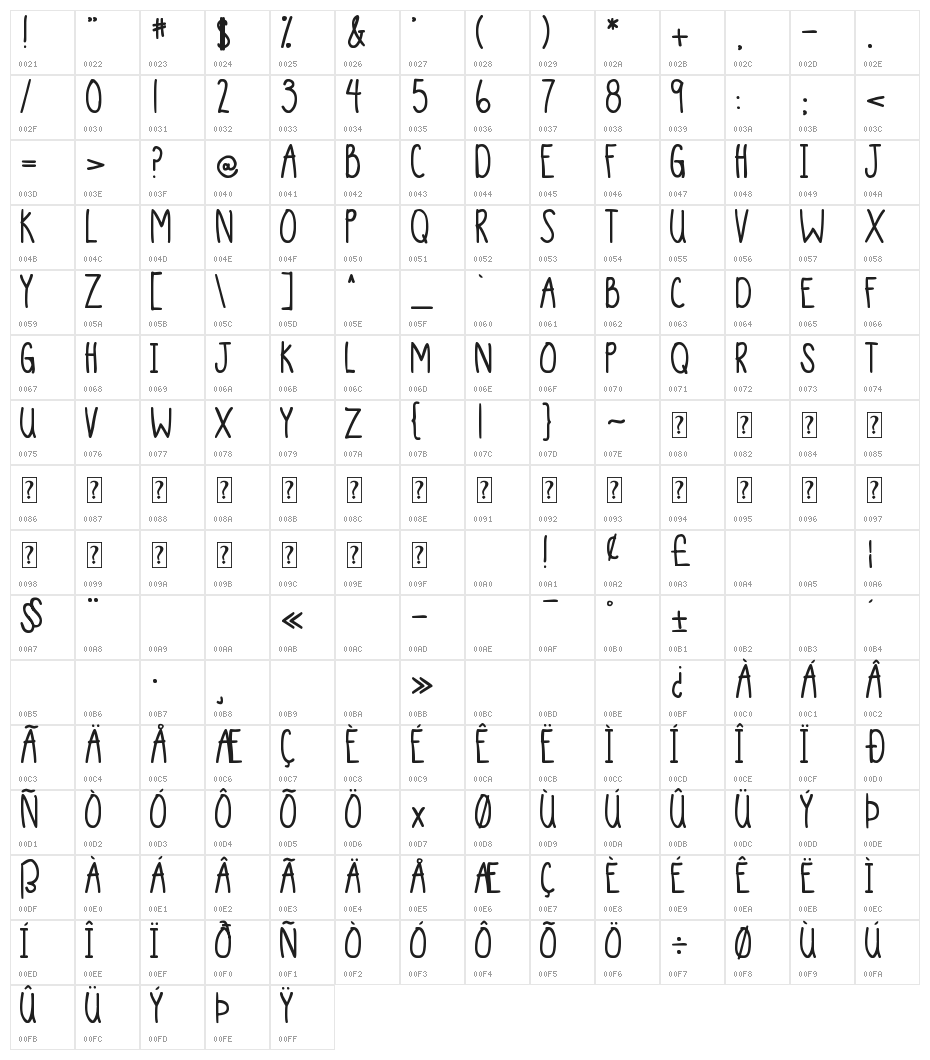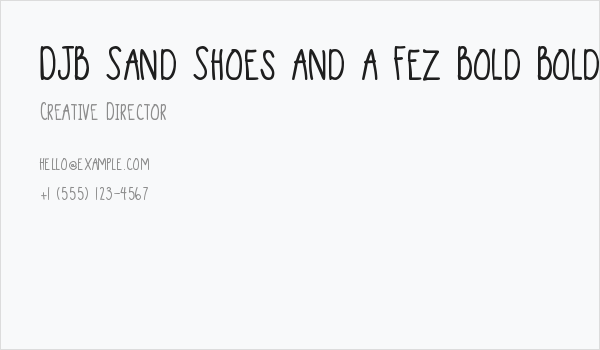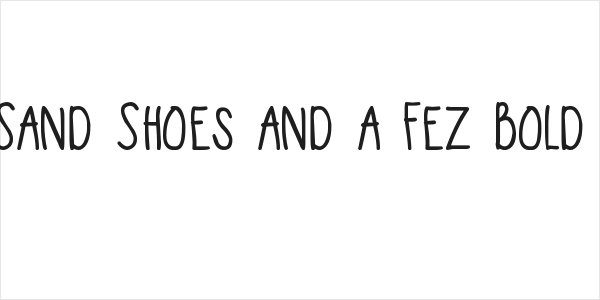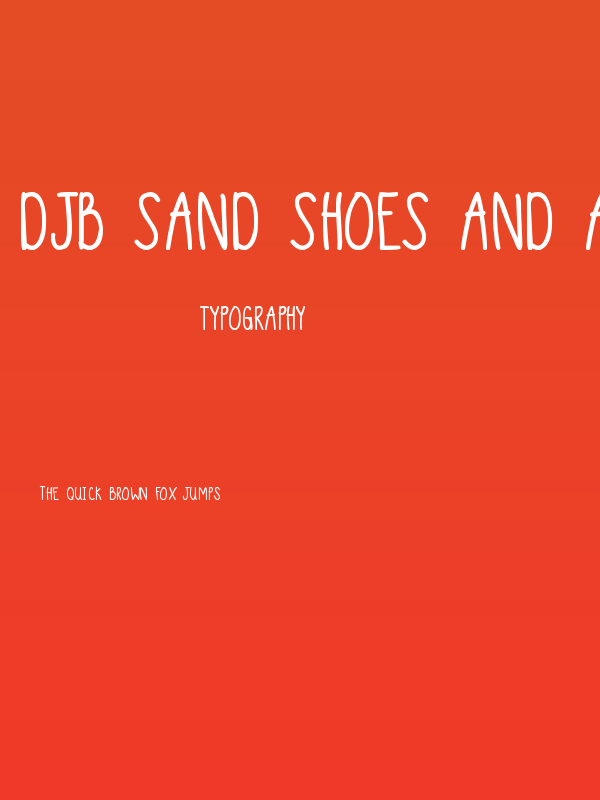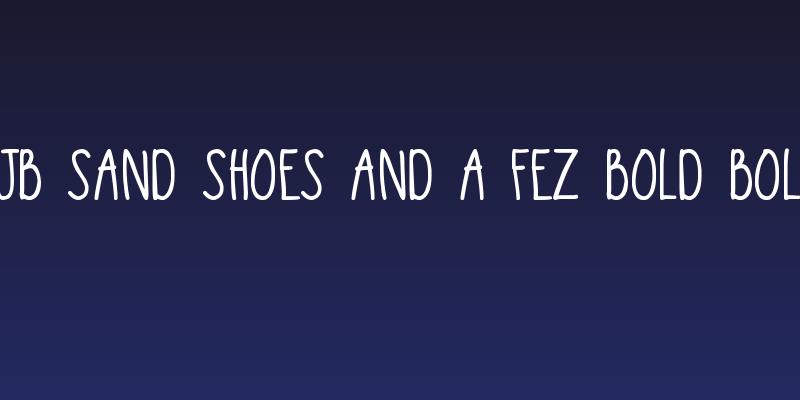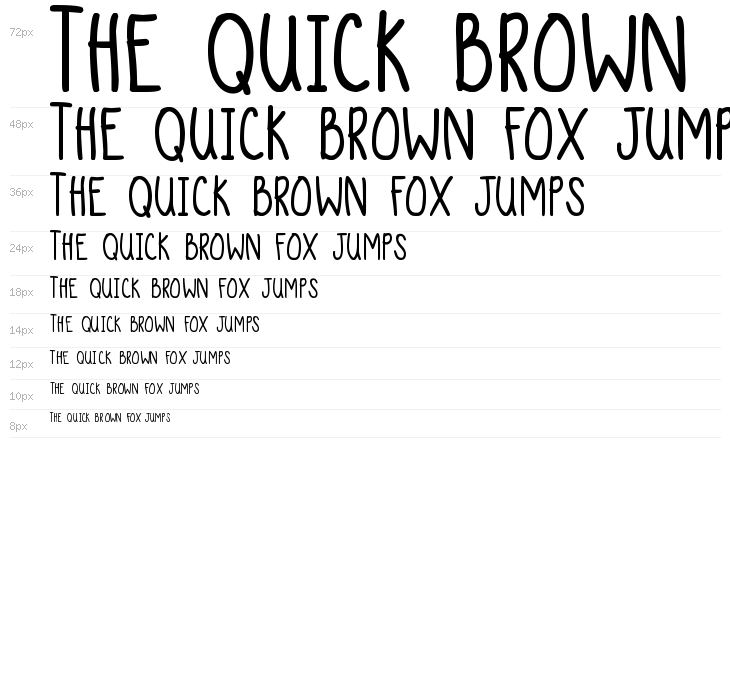
DJB Sand Shoes and a Fez Bold Bold Font
DJB Sand Shoes and a Fez Bold Bold Description
| Proposed Projects | Ideal for children's books, greeting cards, playful branding, and casual invitations. |